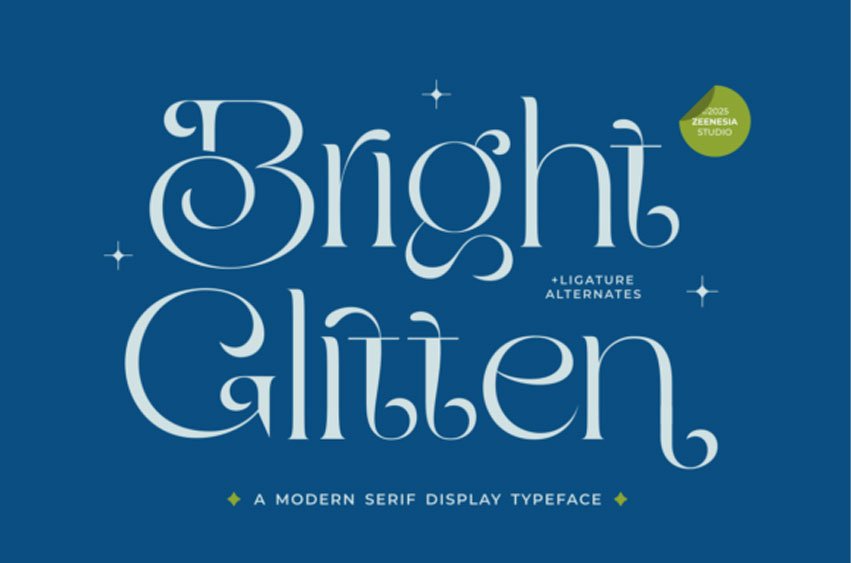
Bright Glitten Font Step into the world of elegance and radiance with Bright Glitten, a modern serif display typeface designed to shine in every project. With its graceful curves, stylish ligatures, and refined alternates, this font captures the perfect balance between sophistication and creativity.
Each letter in Bright Glitten is thoughtfully crafted to add a sense of luxury and allure — ideal for branding, editorials, logos, and high-end packaging. The font’s modern serif structure glimmers with personality, giving your text a timeless yet contemporary feel.
Add a touch of sparkle to your typography with its alternate characters and special ligatures, offering endless combinations to make your work stand out. Whether used for fashion campaigns, invitations, or elegant stationery, Bright Glitten ensures your words shimmer with style.
Let your designs glow with confidence and charm — Bright Glitten is where modern beauty meets classic finesse.
Modern Serif Display Typeface
Stylish Ligatures & Alternates
Elegant, High-Contrast Details
Perfect for Luxury Branding, Logos, and Editorials
Timeless, Sophisticated Design.